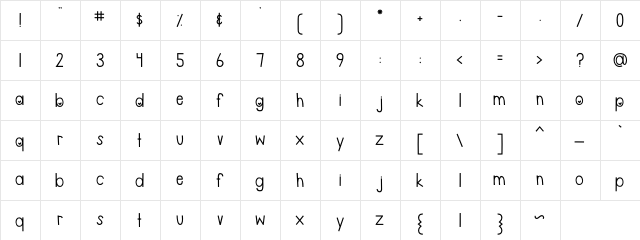
MTF Be Mine Regular
| Foundry | Miss Tiina Fonts |
| Designer | Miss Tiina |
Design Context for MTF Be Mine Typeface
MTF Be Mine takes a measured approach to typography — its balanced proportions and neutral character make it a reliable workhorse for both digital and print work.